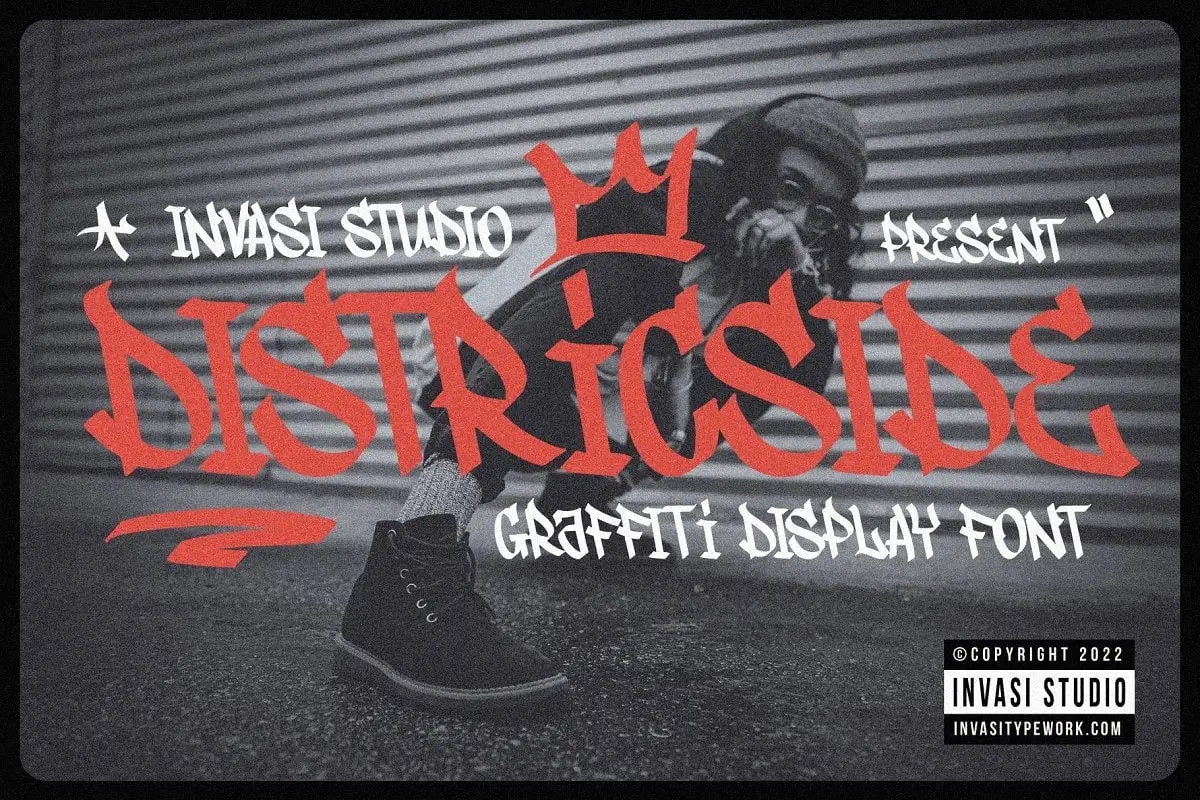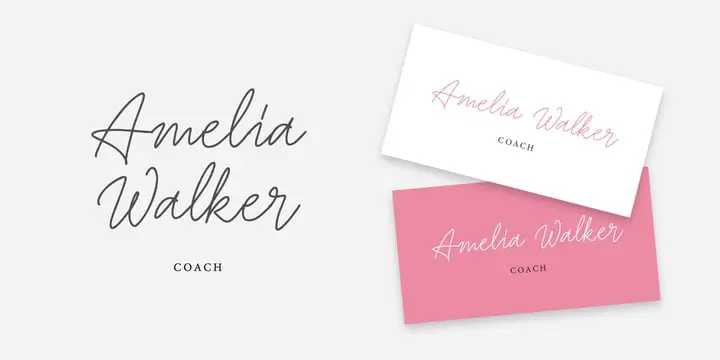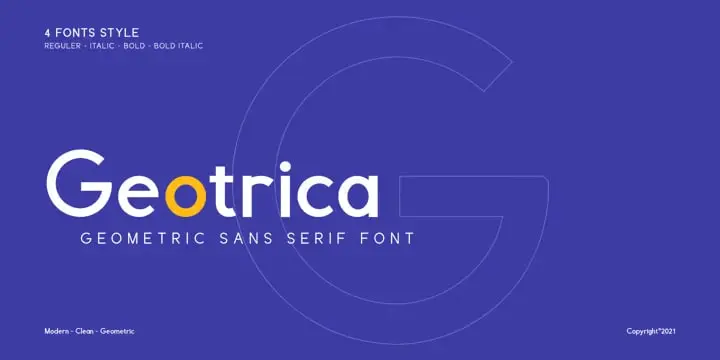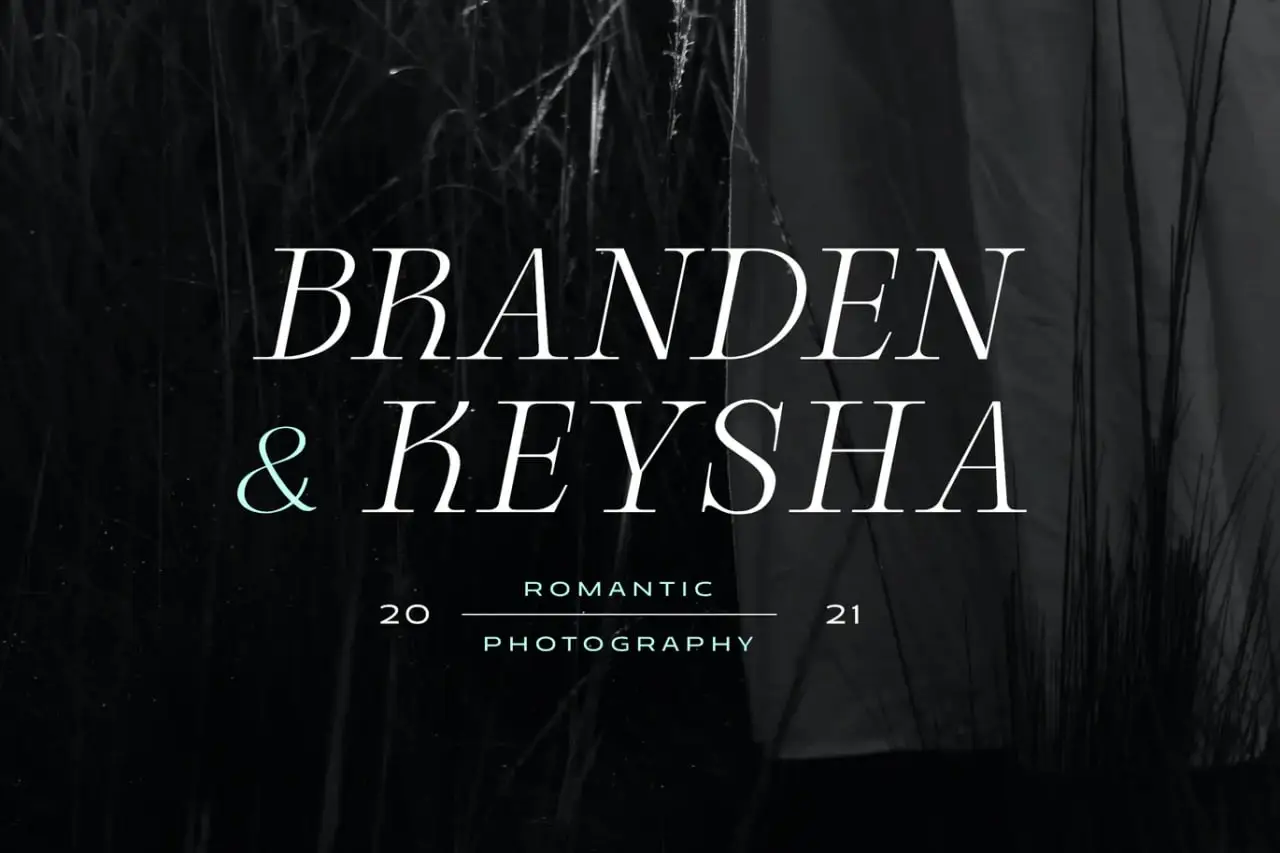
Hey there, creative soul! 👋 Are you ready to take your design projects to the next level? We’ve curated something truly special for you today. Welcome to Brushespack Collection Part 121—a jaw-dropping lineup of 20 fonts and typefaces that will absolutely ignite your imagination. 🚀
From elegant serifs to bold graffiti styles, this collection is a goldmine for anyone who loves typography. Whether you’re working on branding, web design, or just experimenting for fun, these fonts are packed with personality. Let’s dive in and find your next favorite! 🎨✨
Why Use These Fonts & Typefaces?
Typography is the heartbeat of any design. The right font can whisper elegance or shout rebellion, and with this mix, you get the best of both worlds. 🖌️ These assets are perfect for logos, posters, social media graphics, and even user interfaces. Trust me, once you see them in action, you’ll wonder how you ever lived without them!
Top 20 Fonts & Typefaces Picks
Emilea Font
Oh, Emilea! 🖋️ This font is pure sophistication with its smooth lines and elegant character shapes. Perfect for wedding invites or high-end branding, it’s like a glass of fine wine for your eyes! 🍷
Dragon Brothers-Strong Graffiti Font
Get ready to break the rules with this bold, urban-inspired graffiti typeface! 🎨 It’s edgy, it’s loud, and it’s perfect for streetwear logos or album covers that demand attention.
Ghour Gothic Display Typeface
Sharp, geometric, and totally commanding—Ghour Gothic is the heavyweight champ of display fonts! 🥊 Use it for headlines that punch through the noise and leave a lasting impression.
Gktype01 (C) Gilles Kergadallan Gk Letters
Art meets tech with this modern masterpiece. 🎭 The geometric shapes and organic curves make it a dream for branding or editorial layouts. It’s quirky, it’s fresh, and it’s totally unique!
Funky Yard-Svg Groovy Font + Extra — By Prioritype Co
Get your groove on! 🕺 This playful, groovy font is pure retro fun with a modern twist. It’s awesome for party posters, fun logos, or anything that needs a splash of joy!
Frankie Friends By Bryantama Nur Hidayat Suyoto
This isn’t just a font—it’s a whole vibe! 🤝 Frankie Friends brings a playful, customizable collection of assets that are perfect for kids’ projects or whimsical branding.
Ezstudio Modern Serif Display Font Artemova
Elegance with an edge! 💎 Artemova’s serif details add a touch of class to any design, making it ideal for luxury branding or magazine layouts. It’s chic, refined, and oh-so-stylish.
Ekahermawan-Bhostra Lala Font
A beautiful blend of elegance and modernity, Lala Font is as graceful as it is versatile. 🌸 It’ll add a soft, sophisticated touch to your logos and web designs!
Gliker Font Family By Studio Sun
The whole package! 🎁 Gliker gives you Regular, Bold, Italic, and more—everything you need for a cohesive branding project. It’s clean, modern, and super reliable.
Dirtyline 36Daysoftype
A creative explosion! 💥 With 36 distinct typefaces, this collection is a treasure trove for experimental projects. Each character has its own personality—total art gold!
Glamre-Elegant Modern Glamour Italic Serif
Talk about glamour! ✨ This italic serif is the epitome of class and sophistication. Perfect for editorial spreads or luxury invites—it just screams “fabulous”!
Farsh Marsh
Versatility is the name of the game! 🎲 High-resolution graphics that blend seamlessly into web or print projects. Customize it your way and watch your designs pop!
Elicyon Corporate Typeface
For the boss in you! 👔 Clean, professional lines make Elicyon the go-to for business cards and corporate branding. It’s all about trust and polish.
Franco Fuentes-Mercuria
Where classic charm meets modern aesthetics! 🏛️ Mercuria is a timeless beauty that works wonders for logos and print materials. It’s got that “wow” factor!
Gefika – Modern Sans Serif
The minimalist’s dream. 🧘 Clean lines and a contemporary feel make Gefika a staple for UI/UX design and modern branding. Simple, yet stunning.
Elvaqir Font By Designsation
Bold and beautiful! 💪 Elvaqir balances elegance with a modern edge, making it perfect for standout branding or eye-catching headlines. You’ll love it!
Dmitrii Chirkov-Jingle Font
Festive and fun! 🎄 Jingle Font is perfect for holiday designs or playful branding. It brings a smile to every project with its modern, cheerful energy.
Districtside By Invasi Studio
Urban vibes with a modern twist! 🏙️ This collection of high-quality assets is super easy to customize and perfect for adding a fresh, contemporary look to your projects.
Geotrica Font
Geometry never looked so cool! 🔺 Geotrica’s sharp shapes and clean sans-serif style are perfect for tech branding or modern logos. It’s sharp, sleek, and super versatile.
Giga Typeface!
Last but not least—Giga! 🚀 This modern font family with multiple weights (Regular, Bold, Italic) is the ultimate companion for any creative project. Big impact, minimal effort!
Frequently Asked Questions
What makes the Brushespack Collection Part 121 special?
It’s a carefully curated mix of 20 unique fonts and typefaces, ranging from modern sans-serifs to artistic display fonts, all perfect for branding, web design, and print projects. Each one is designed to add a unique flavor to your work!